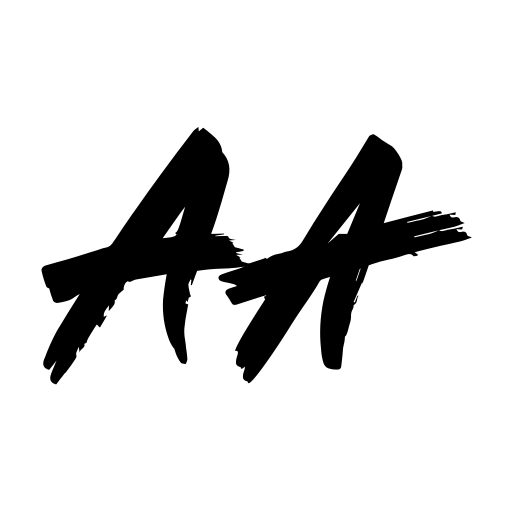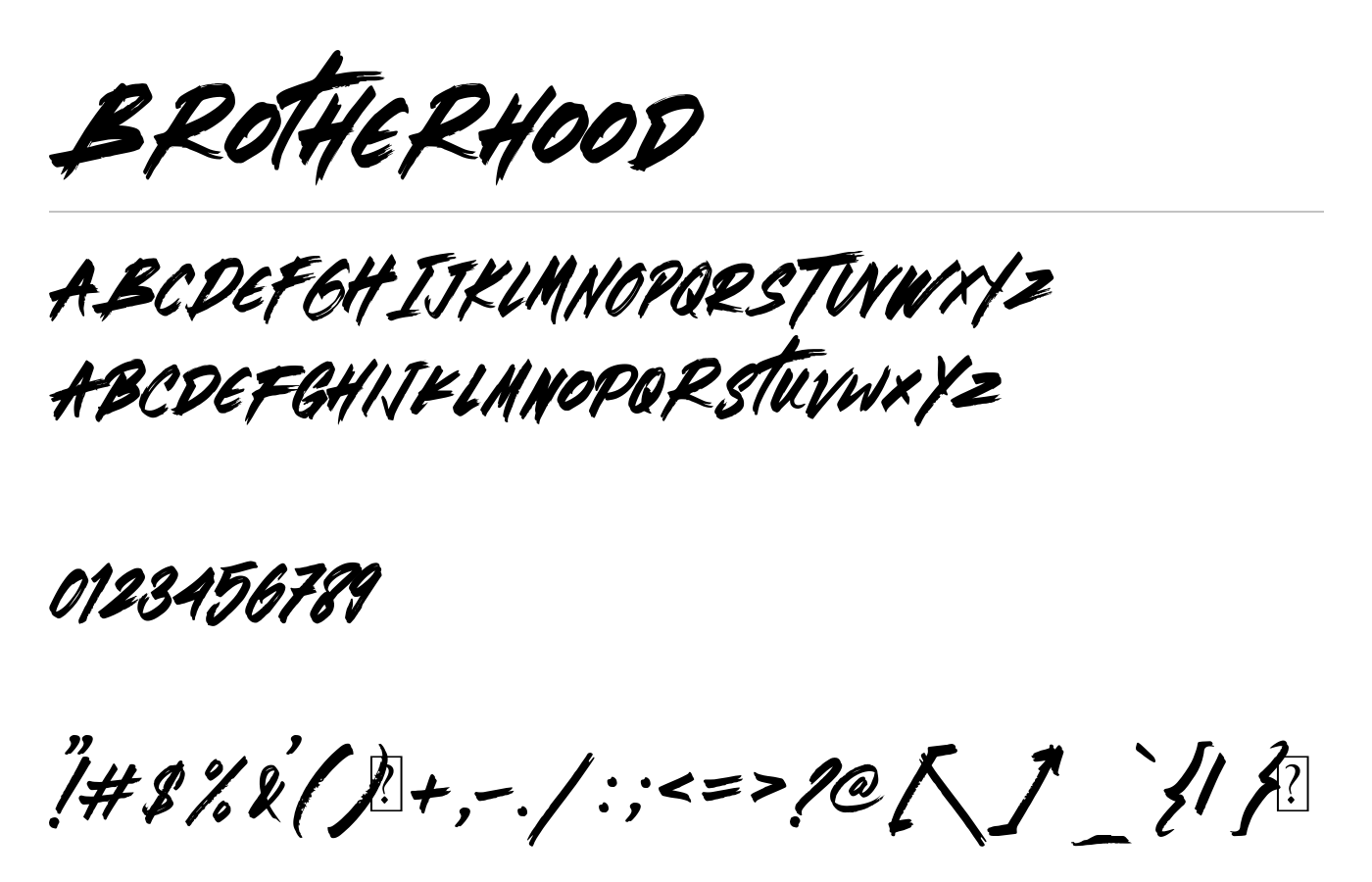
Brotherhood Font is a bold, energetic brush script that captures a hand-painted, dynamic feel with its sharp, textured strokes and slightly condensed letterforms. Its casual yet strong personality makes it perfect for bold headlines, logos, and creative projects that need a youthful, spirited vibe. This font works especially well in designs looking to convey action, confidence, and authenticity.
Brotherhood Font
About Brotherhood Font